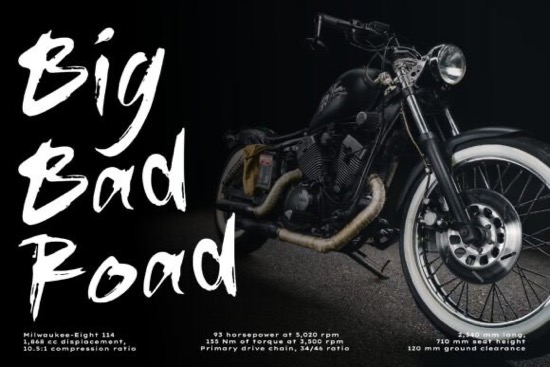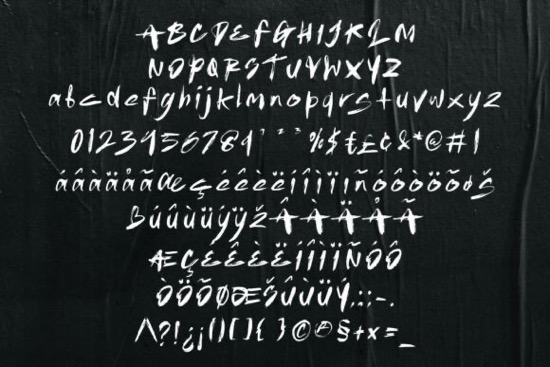
Badfool Font
by VSTRD TYPEWORKS
Badfool is a sophisticated editorial handbrush script font designed to elevate your designs with a touch of refined and cool look, this texture is very detailed. Very suitable for logos, product branding, printable templates, posters, flyers, shirts, or for text overlay to any background image. Badfool font comes in Uppercase, Lowercase, with punctuation and numerals.